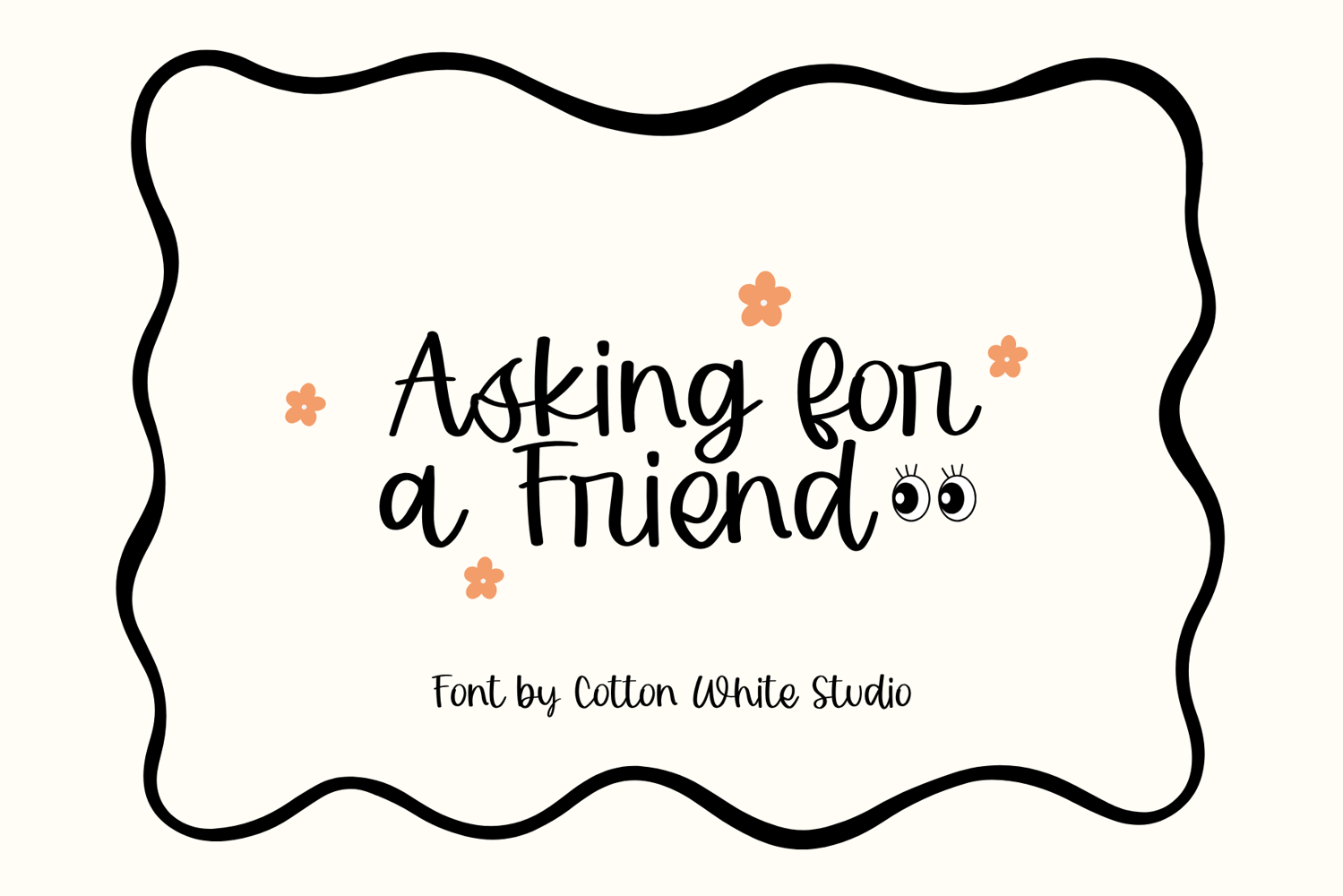
Asking for a Friend
Add a beautiful handcrafted touch to your creative projects with Asking for a Friend, a charming handwritten script font. Featuring elegant, flowing letterforms and an authentic hand-drawn feel, this font brings warmth, personality, and style to any design. Perfect for branding, logos, wedding invitations, social media graphics, blogs, planners, packaging, greeting cards, and so much more.
Asking for a Friend